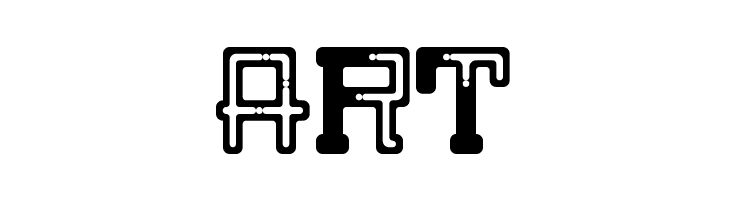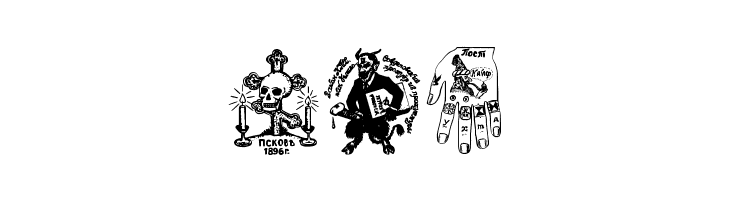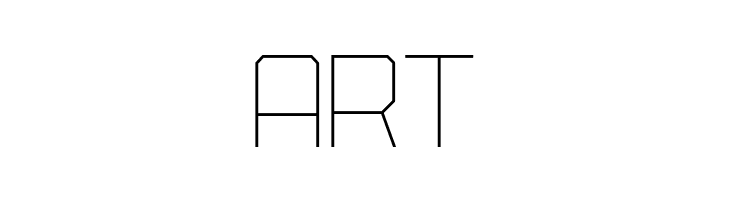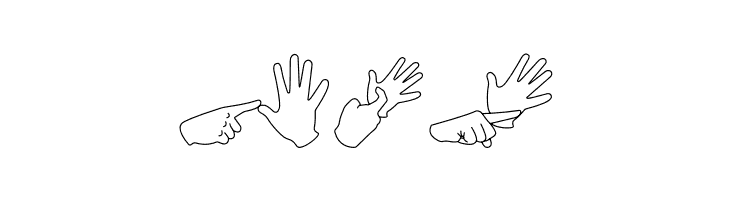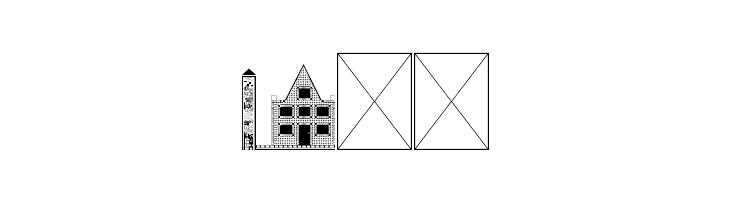
( Fonts by Ditya Ananto )
A playful, hand-drawn font with letters in circular shapes, perfect for creative projects.
( Fonts by Rikyozone )
A bold, industrial-style font with a mechanical, stencil-like design.
Intricate designs inspired by Russian criminal tattoos, featuring bold, high-contrast artwork.
A bold, geometric font with a three-dimensional effect and strong contrast.
A bold, textured script font with a vintage, hand-drawn style.
A geometric outline font with a modern and industrial aesthetic.
A geometric, angular font with a modern and technical appearance.
Minimalist line-art font using hand shapes for each character.
A modern, geometric outlined font with a clean, technical aesthetic.
A decorative font composed of detailed house and building illustrations.